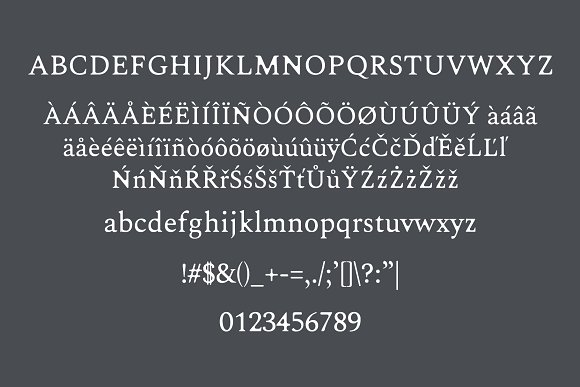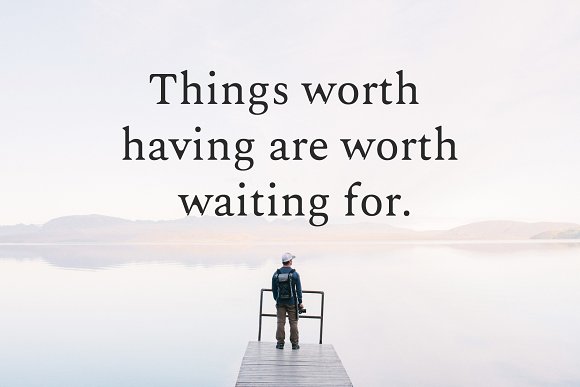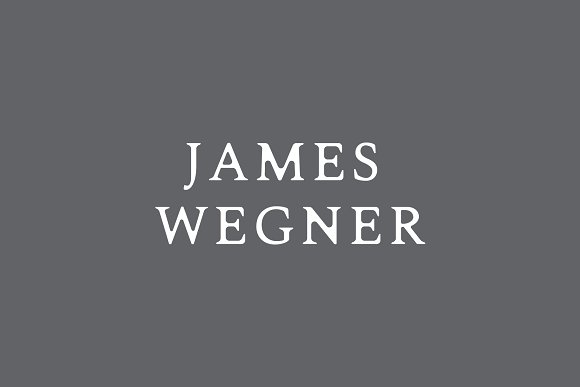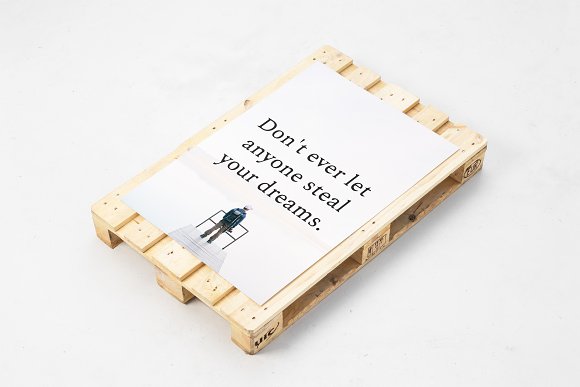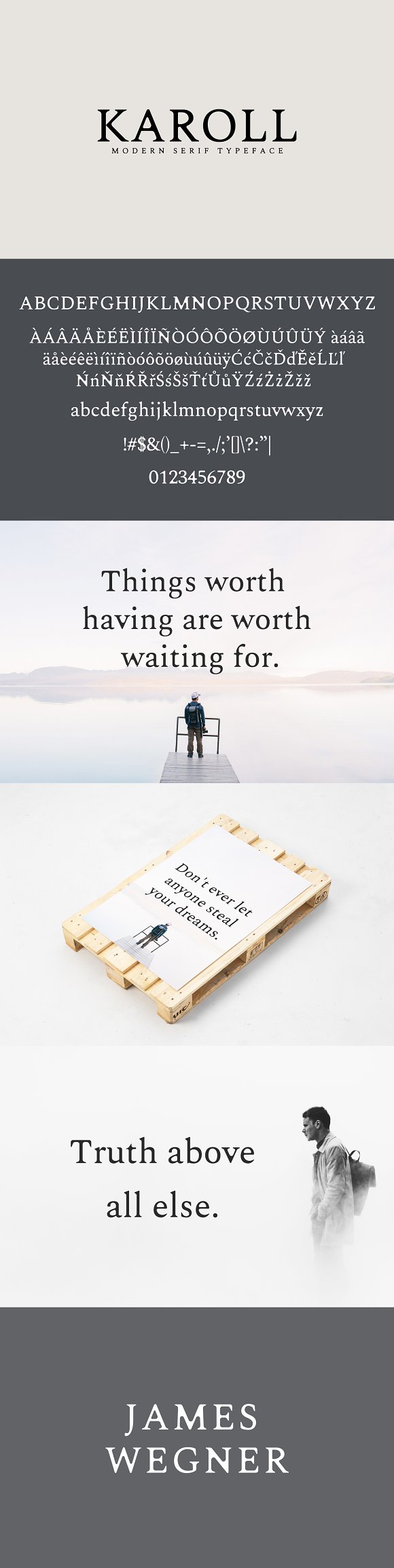
Karoll Modern Serif Font Family
Karoll is a vintage inspired sophisticated, sleek lines serif font typeface. It includes all basic glyphs with Non-English characters. This font will pair beautifully with the display, signature, sans serif, script, or handwriting style fonts. It is best for logo, headlines, posters, quotes, advertising, titles, magazines headings, web layouts, invitations, packaging design, books, branding, and nearly any creative design.